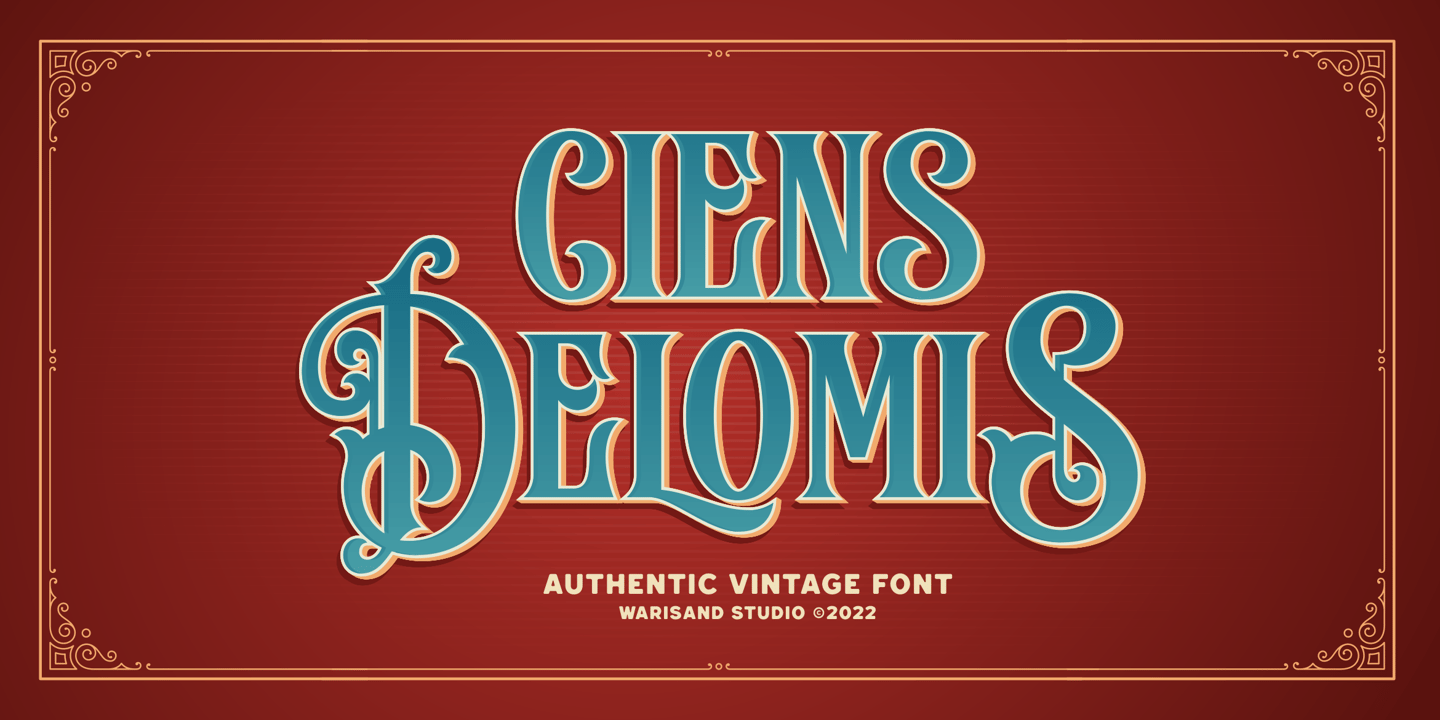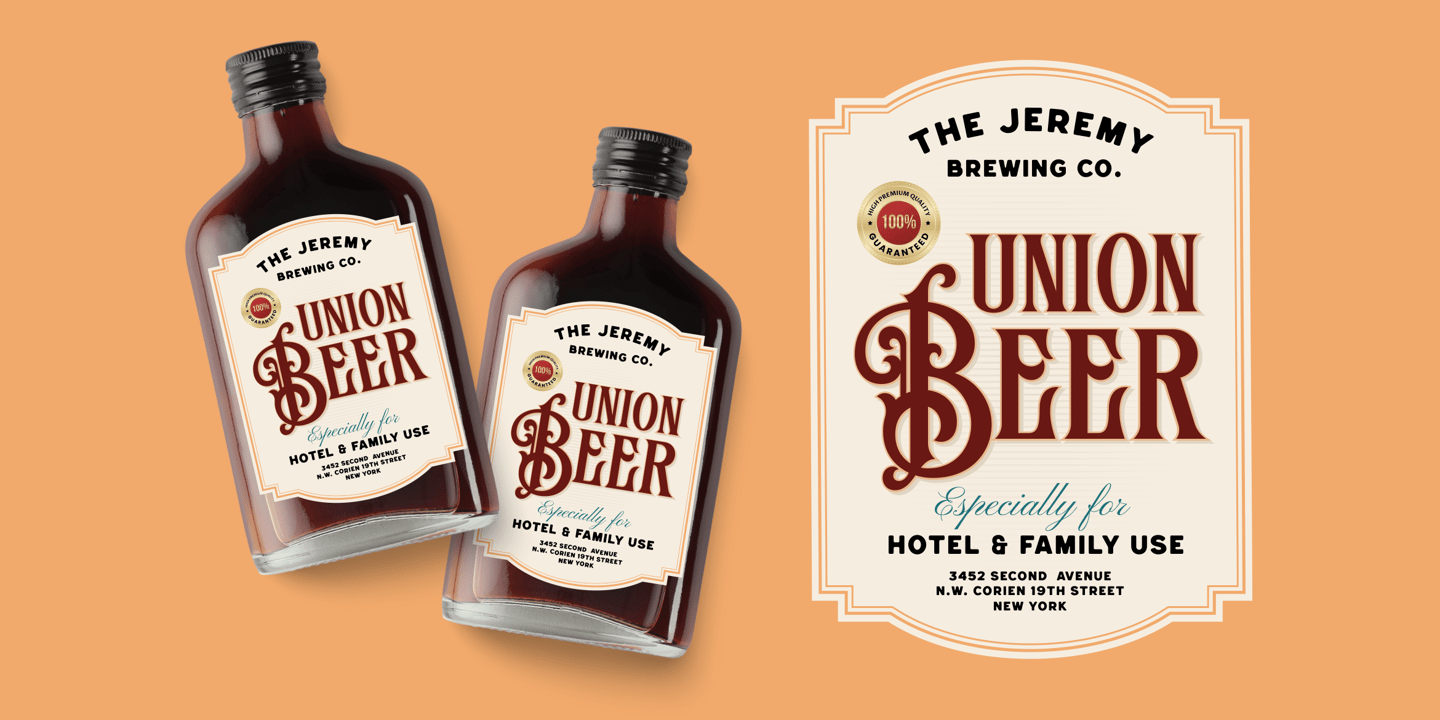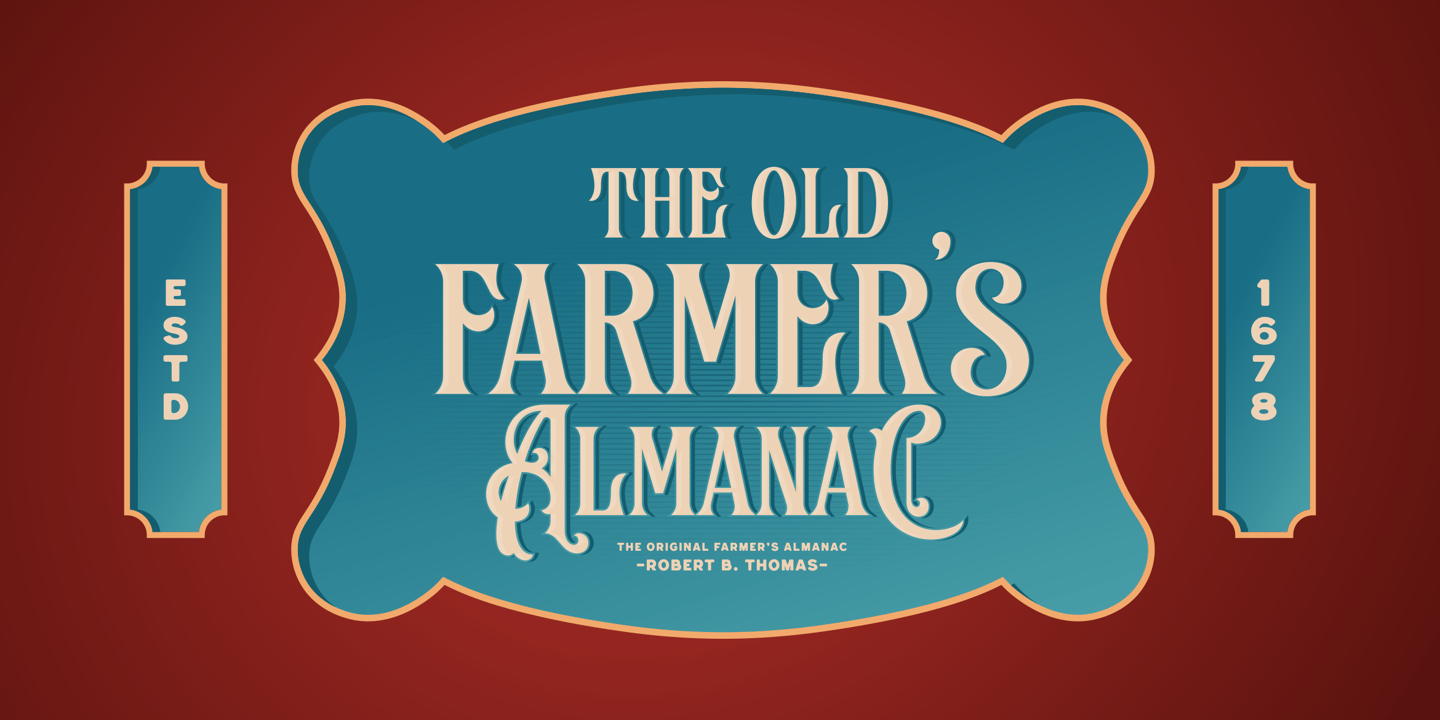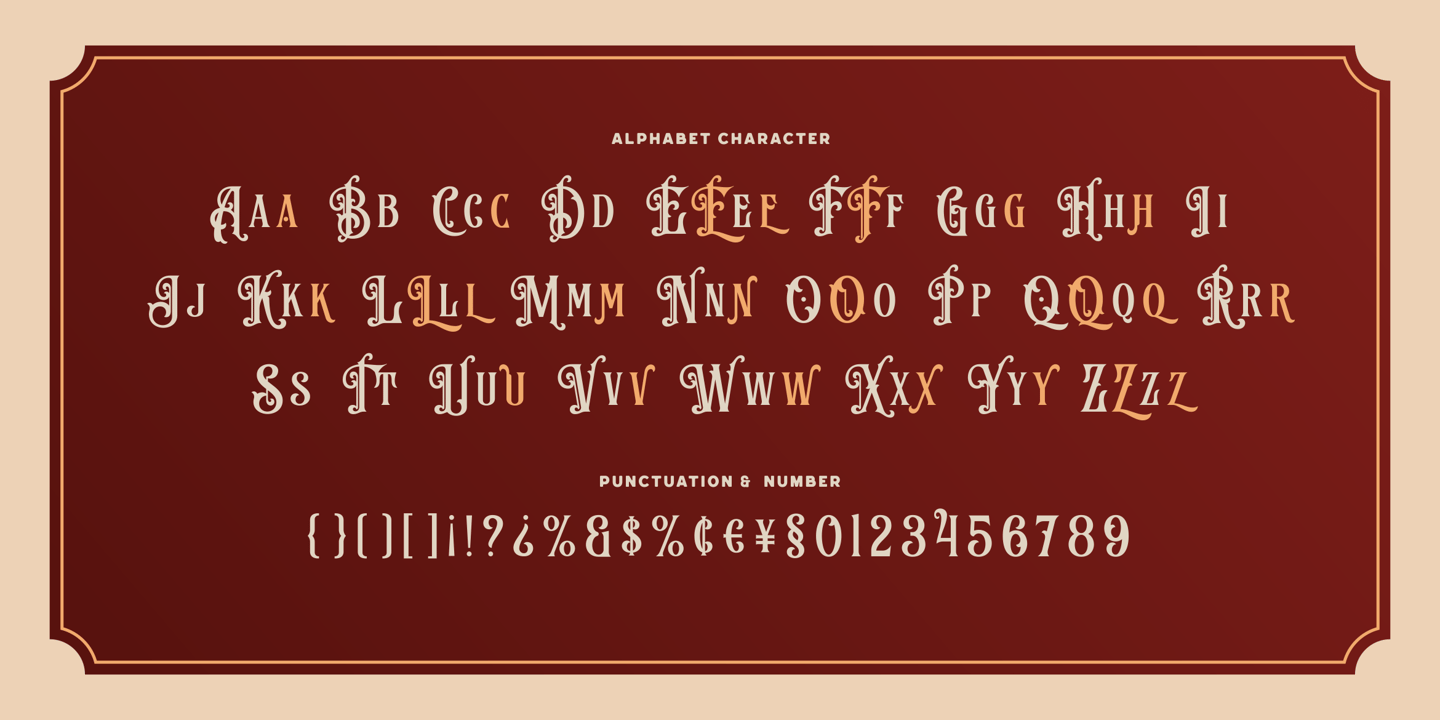
Ciens Delomis is a Vintage Font inspired by beautiful vintage sign art and lettering. The font comes with unique alternate design characters to give your designs an elegant and artistic look. It is perfect for logo and packaging design, short phrases or headlines.